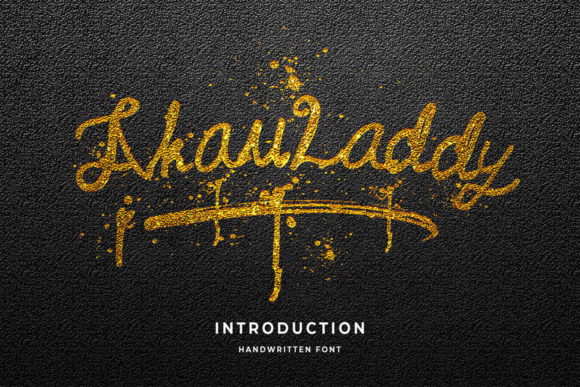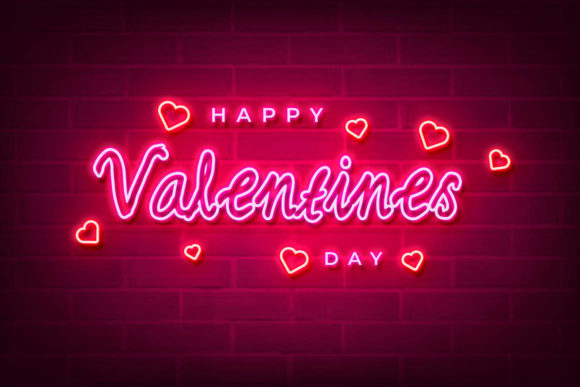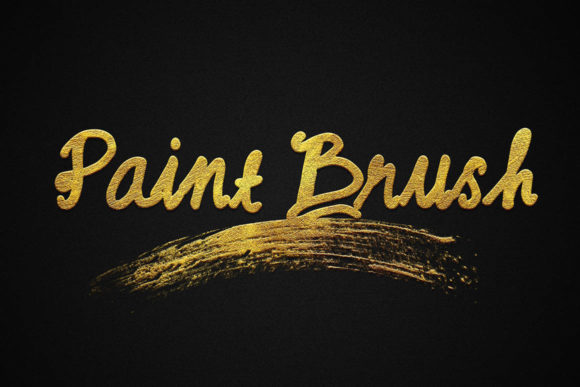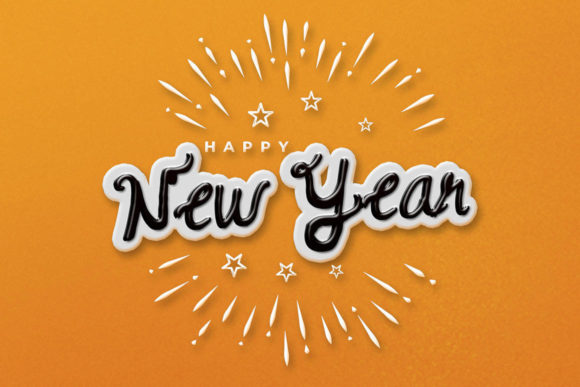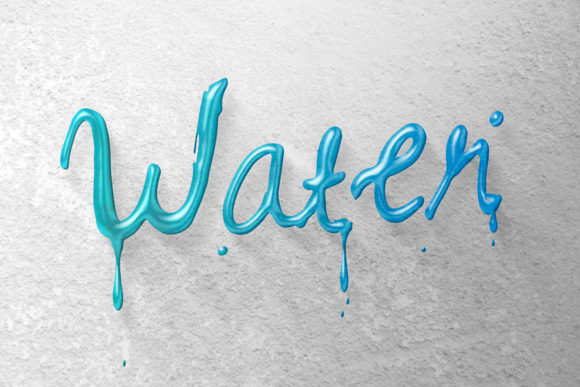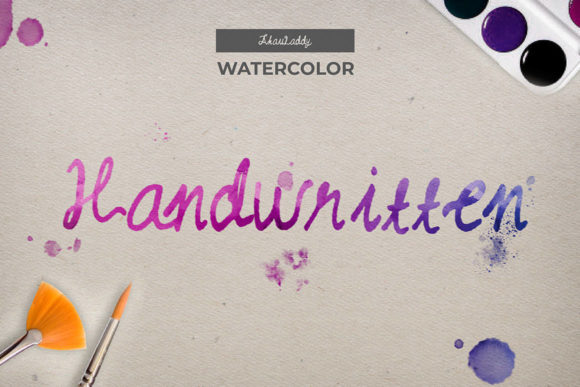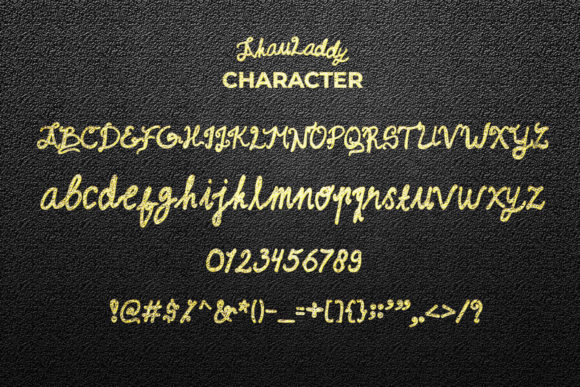
Akau Laddy Font
About Akau Laddy Font
Akau Laddy is an exquisite handwritten font that exudes uniqueness and timeless charm. With its delicate and distinct style, it adds a touch of elegance and sophistication to a wide range of design projects. Here are some ideas on how to make the most of Akau Laddy’s distinct features:
1. Wedding Invitations: Create captivating and romantic wedding invitations using Akau Laddy, setting the tone for a memorable and special event.
2. Thank You Cards: Design heartfelt and elegant thank you cards with Akau Laddy, expressing gratitude with a touch of class.
3. Quotes and Typography Art: Craft inspiring typography art and quote posters with Akau Laddy, infusing your messages with artistic flair.
4. Greeting Cards: Use Akau Laddy to design charming and sophisticated greeting cards for various occasions, adding a touch of timeless beauty.
5. Logos and Branding: Incorporate Akau Laddy into your logo and branding elements to create a unique and memorable identity for your business.
6. Product Packaging: Apply Akau Laddy to product packaging for a distinctive and eye-catching appeal that resonates with customers.
7. Social Media Graphics: Use Akau Laddy to create eye-catching and stylish social media graphics that elevate your online presence.
8. Book Covers: Design captivating book covers with Akau Laddy, giving your literary works an artistic and captivating touch.
9. Personal Stationery: Customize your personal stationery with Akau Laddy, adding a touch of sophistication to your written correspondence.
10. Art Prints: Create stunning art prints featuring Akau Laddy’s unique characters, perfect for adding a touch of elegance to any space.
11. Event Invitations: Design invitations for special events and celebrations with Akau Laddy, creating a distinct and stylish look.
12. Blog Graphics: Use Akau Laddy in blog post headers and graphics to add a touch of artistic flair and personality to your content.
13. Craft Projects: Apply Akau Laddy to DIY craft projects, such as handmade cards, gift tags, and labels, for a distinctive and personalized touch.
14. Restaurant Menus: Use Akau Laddy to design upscale and artistic menus for restaurants, exuding sophistication and allure.
15. Nursery Decor: Create delicate nursery decor with Akau Laddy’s unique characters, adding a touch of artistic elegance to baby rooms.
Akau Laddy’s distinct, delicate, and timeless features make it a versatile and captivating font for a wide variety of design projects. Its charming and elegant style enhances the beauty of any design that requires a handwritten touch. Embrace Akau Laddy’s uniqueness, and you’ll witness how it elevates your creative projects to new heights of sophistication and beauty!